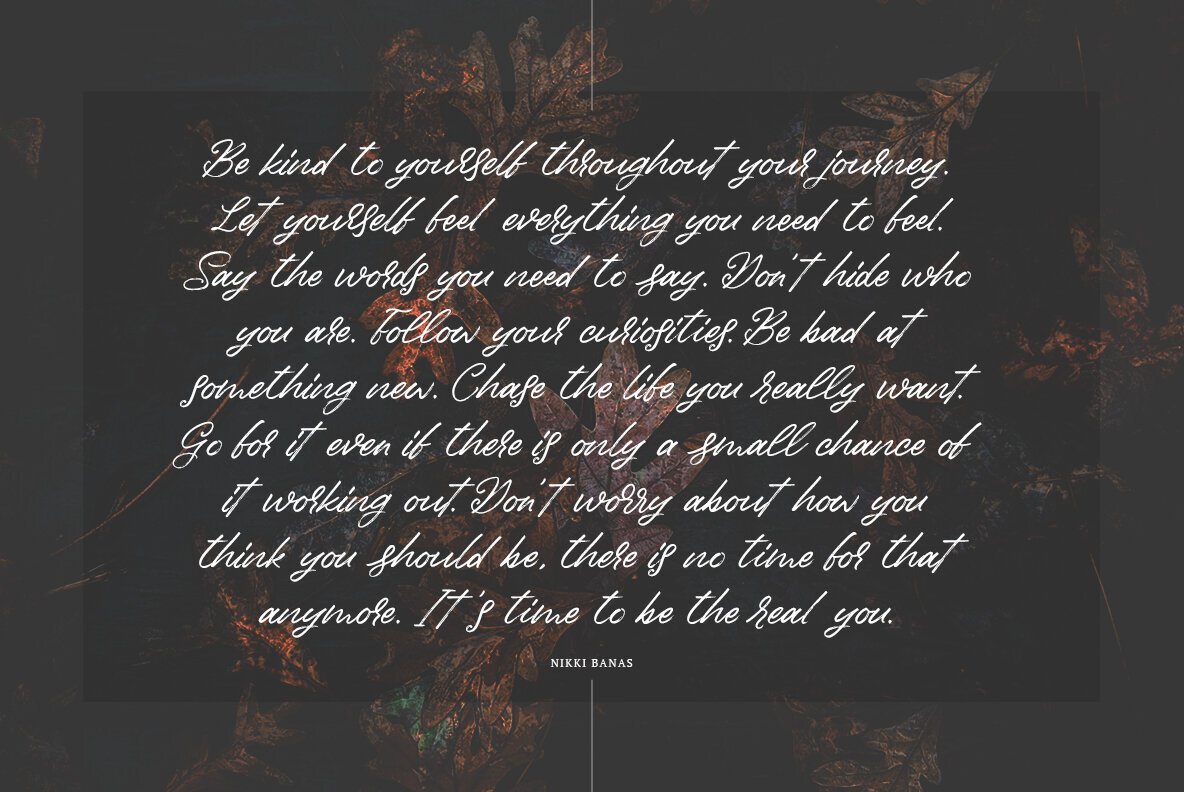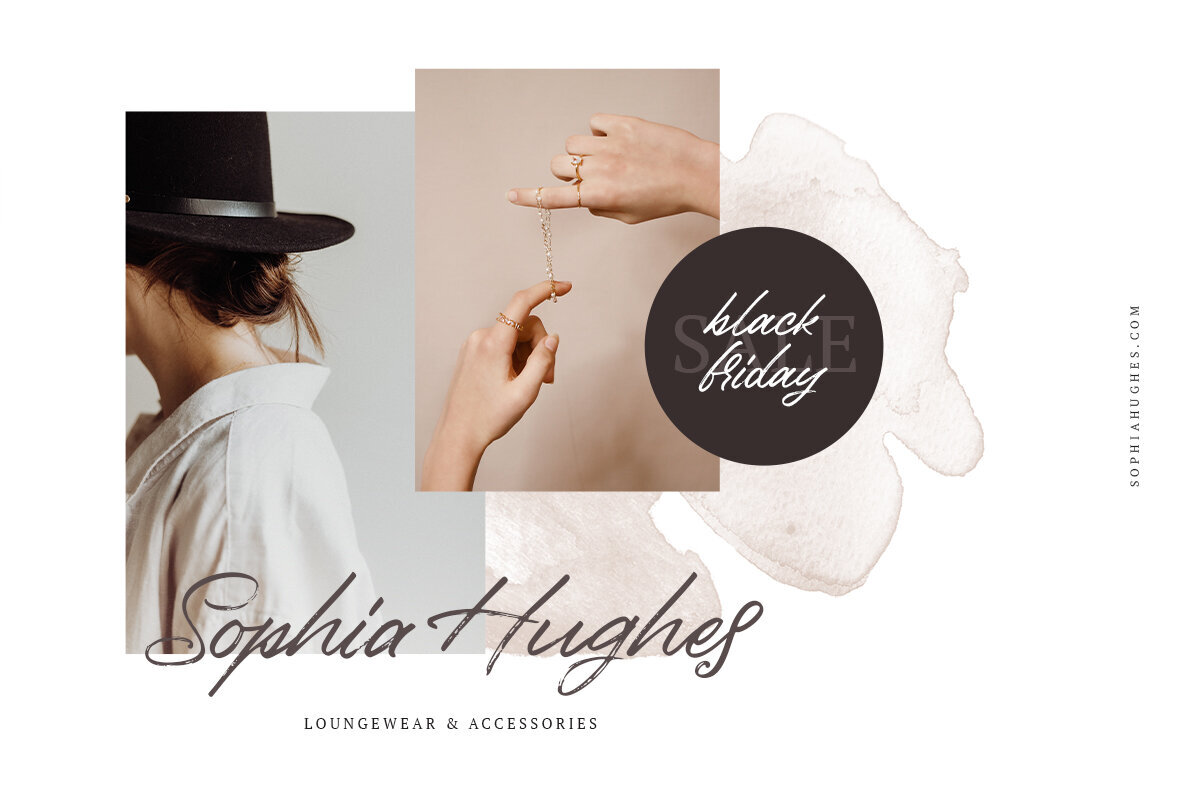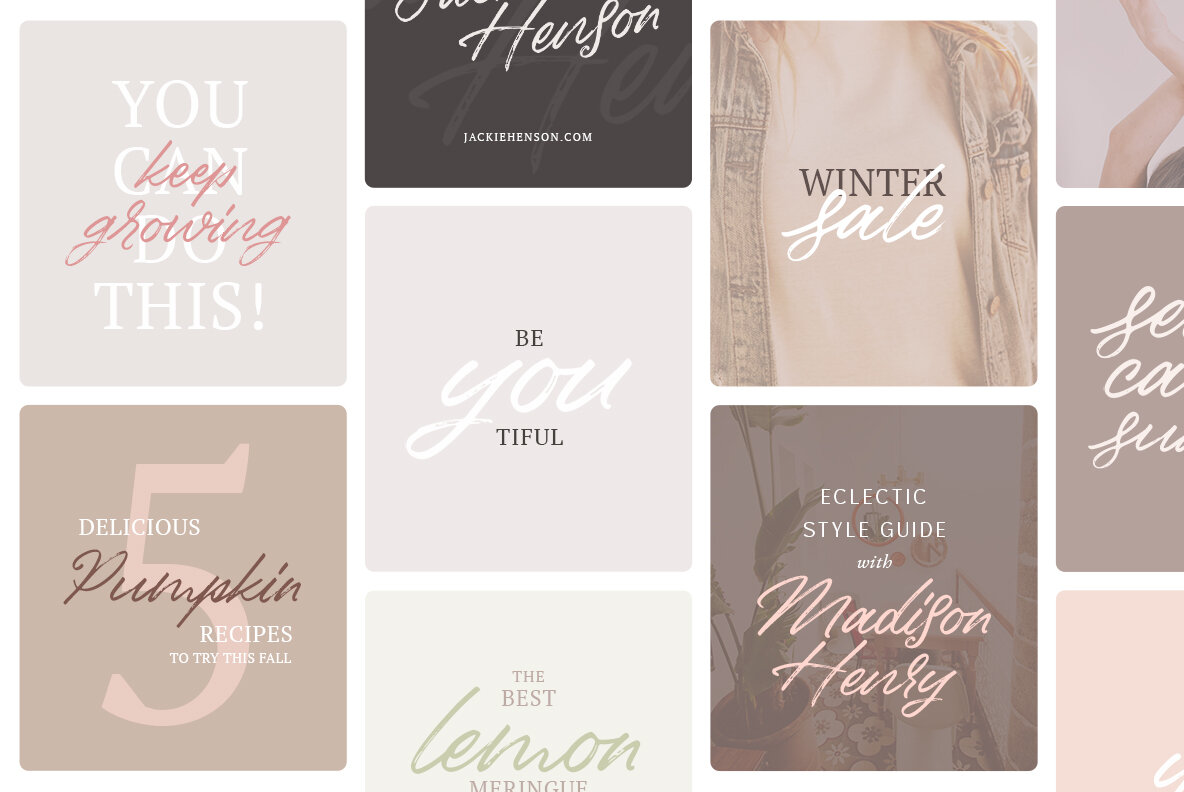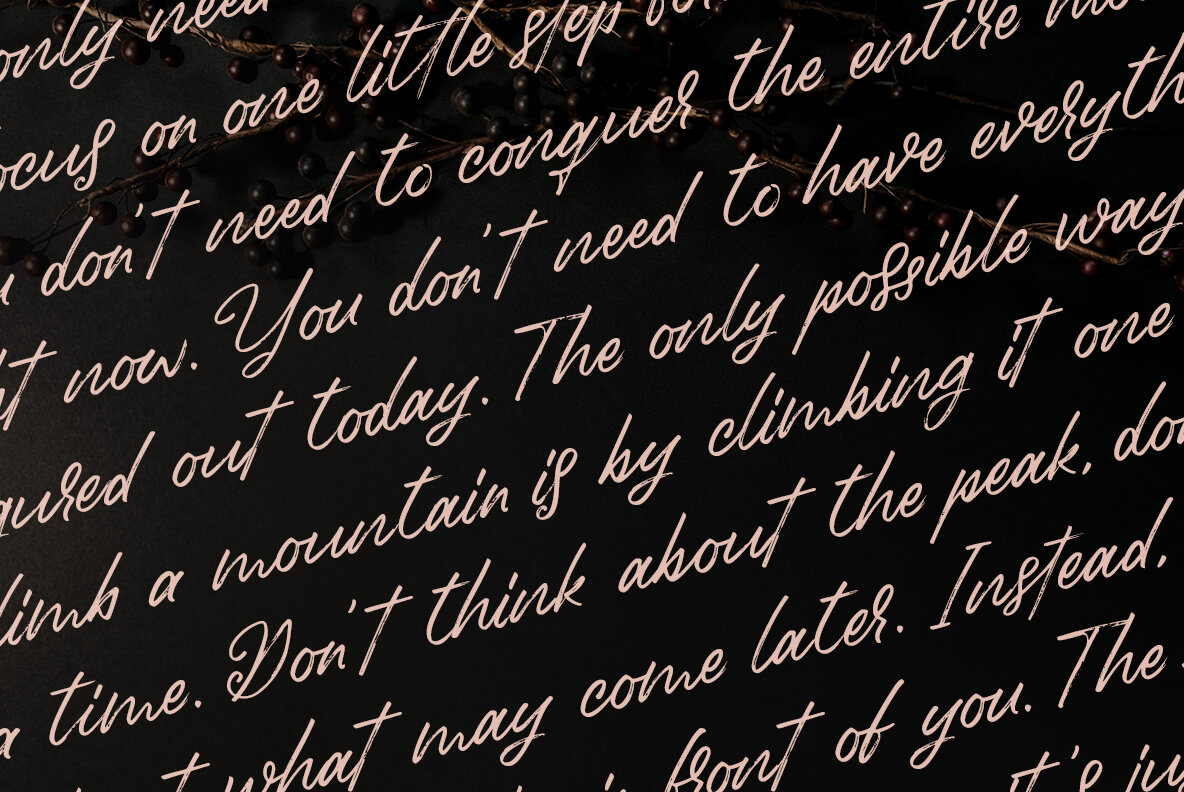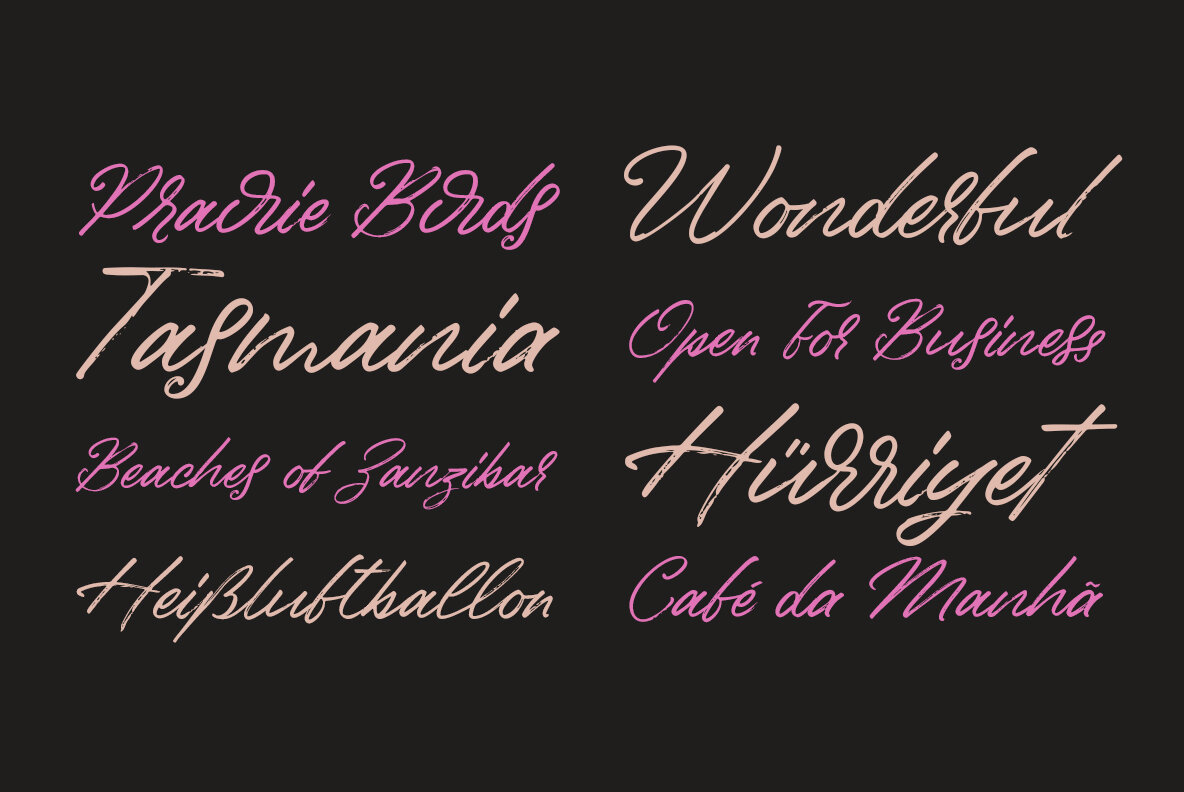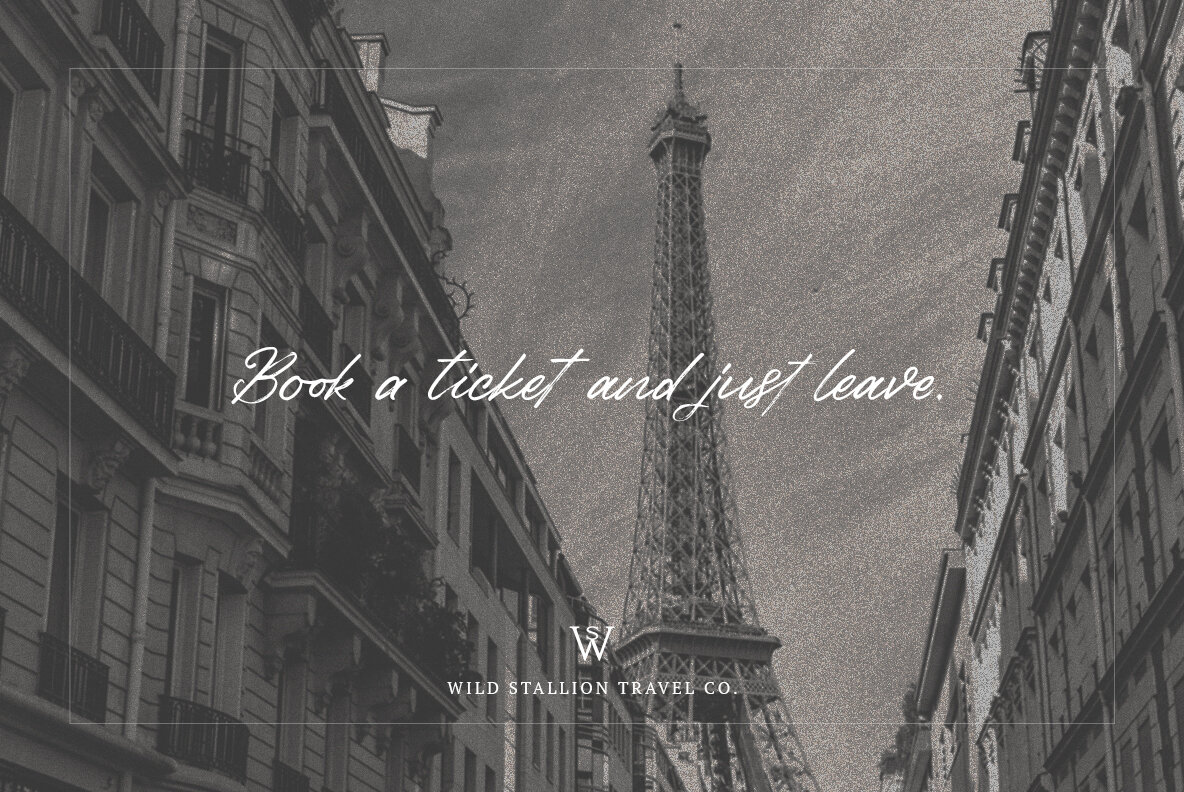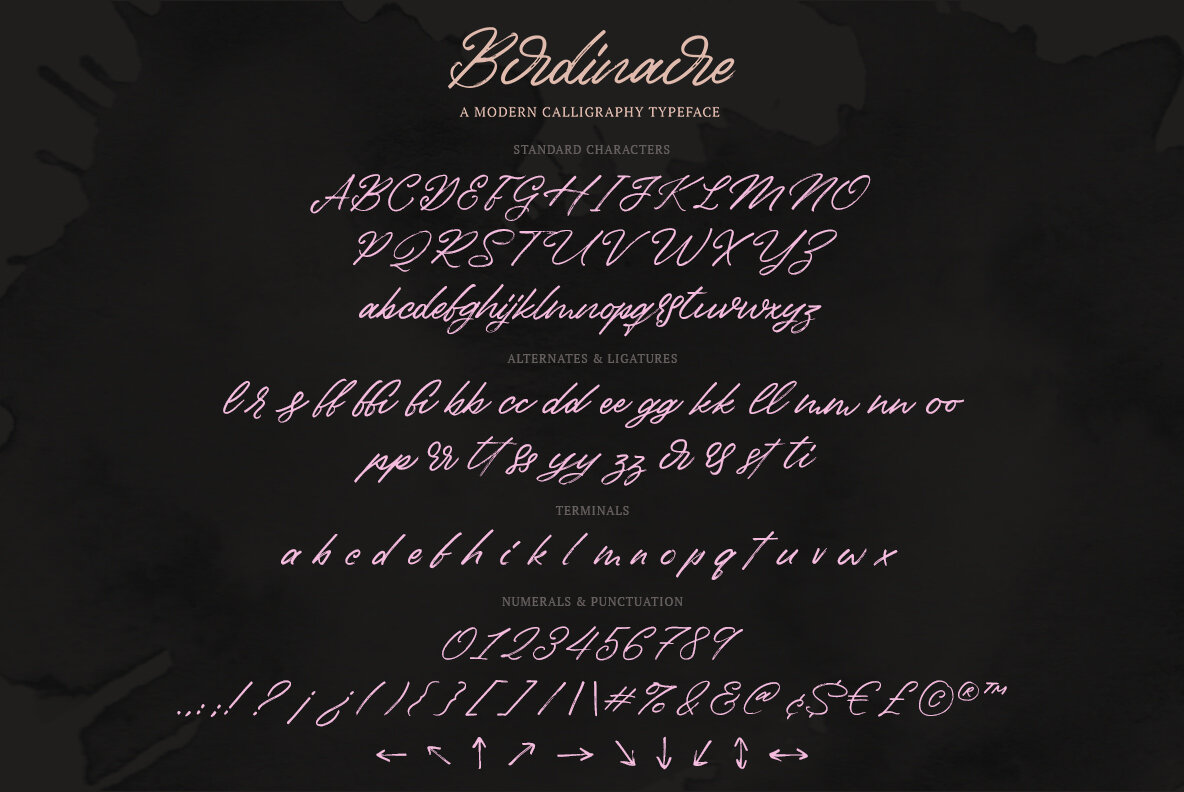
Birdinaire Font
Birdinaire Regular
Discover Birdinaire, a modern calligraphy typeface featuring highly slanted yet legible forms. This captivating font is enriched with a variety of ligatures and alternate letters, adding to its originality and fluidity. Embracing a textured dry brush appearance, Birdinaire highlights its authentic, handcrafted charm, making it the perfect choice for a range of creative projects.